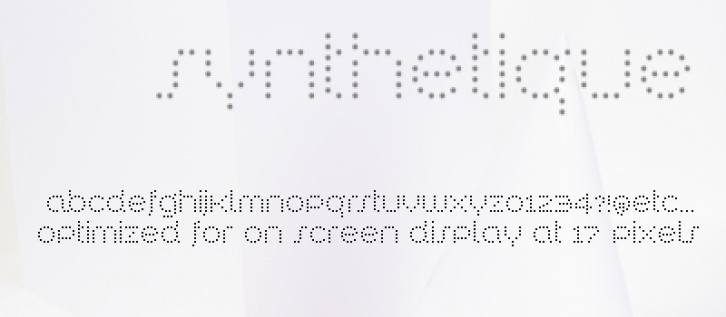
Designed as a bitmap font using Fontlab's Bitfonter and then converted to an outline font. Synthetique has been optimized for on screen display at 17 pts. When your using this font at 17 pts be sure that anti-aliasing (smoothing) is turned off in your graphics program. Otherwise, I recommend using this font at 24 pts or above with font smoothing on. It looks great printed at any size.